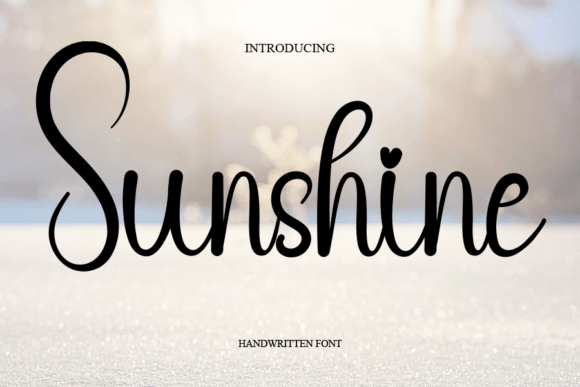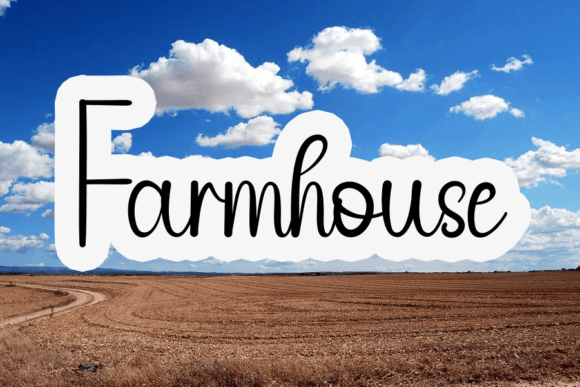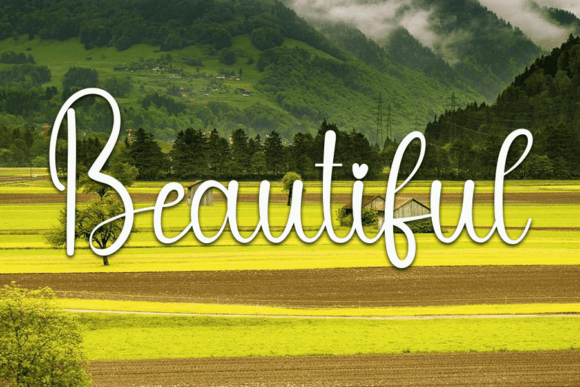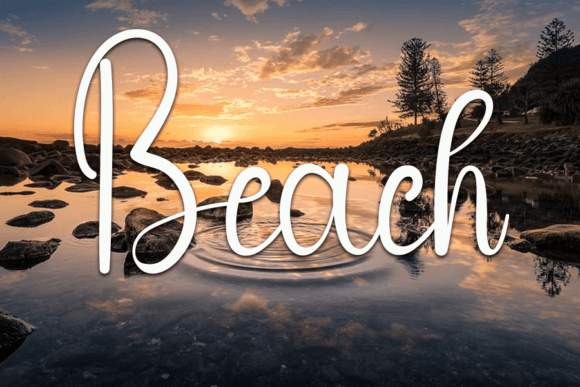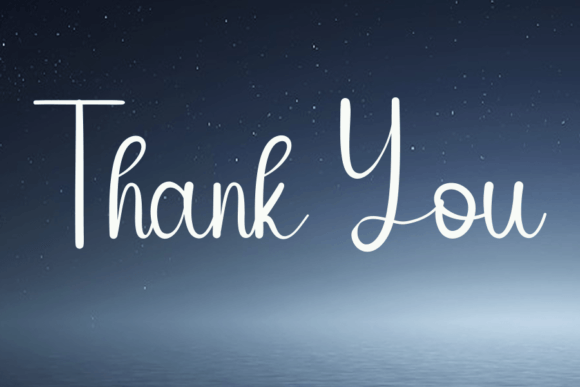
Sunshine Font
About Sunshine Font
“Sunshine” emerges as a beautiful and trendy handwritten font, crafted to enhance various creative endeavors. Whether you are using it for crafting, digital designing, presentations, or greeting card making, this font stands out as the perfect choice for you.
The beauty of “Sunshine” lies in its stylish and handwritten design. The trendy elements incorporated into the font make it versatile and well-suited for a range of applications. Its contemporary aesthetic adds a touch of modernity to your projects, ensuring that they resonate with current design trends.
For crafting enthusiasts, “Sunshine” becomes an invaluable tool. The handwritten style adds a personalized and artistic touch to your creations, making them visually appealing and unique. Whether used in scrapbooking, DIY projects, or other crafting endeavors, the font enhances the overall aesthetic.
In digital design, “Sunshine” brings a fresh and trendy vibe. Its handwritten charm adds character to digital platforms, making it suitable for social media posts, websites, and other digital content. The font’s versatility allows it to adapt seamlessly to the dynamic nature of digital design.
Presentations benefit from the stylish and engaging nature of “Sunshine.” Whether used in slides, titles, or other visual elements, the font adds a touch of creativity and flair, capturing the attention of your audience. Its trendy design contributes to a modern and memorable presentation.
For greeting card making, “Sunshine” is an ideal choice. The handwritten font adds warmth and personality to your messages, making the cards more heartfelt and visually appealing. Whether used for special occasions or everyday greetings, the font enhances the overall sentiment.
In essence, “Sunshine” is more than just a font; it’s a design asset that adds beauty and trendiness to your creative projects. Embrace its stylish handwritten design and let it elevate your crafting, digital designing, presentations, and greeting card making to new heights. Let “Sunshine” be the perfect font that brings a touch of contemporary charm to your creative endeavors.